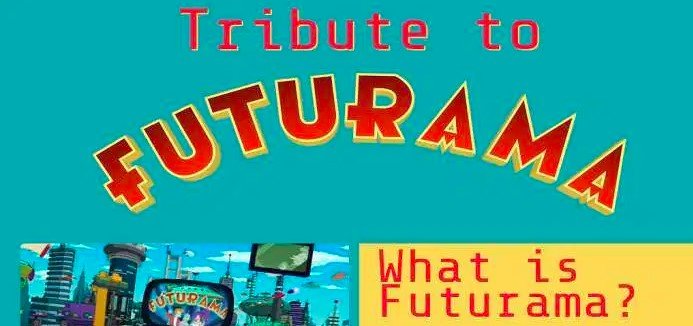
Hello Are you seeking a typeface that can be effortlessly used in various distinctive designs and graphic projects? We are presenting Futurama Font, an elegant and refined typeface designed by the talented Darrell Johnson.
You can check out the image below that we attached to get an idea about its uniqueness and effect designs of this font. It provided the things which every designer loved so much.